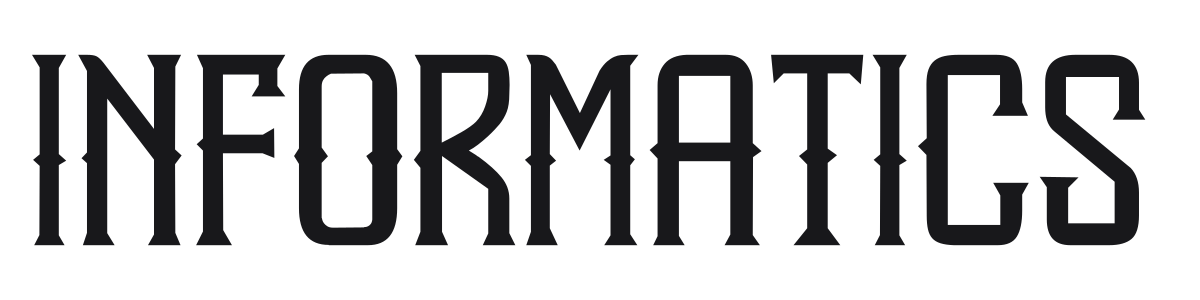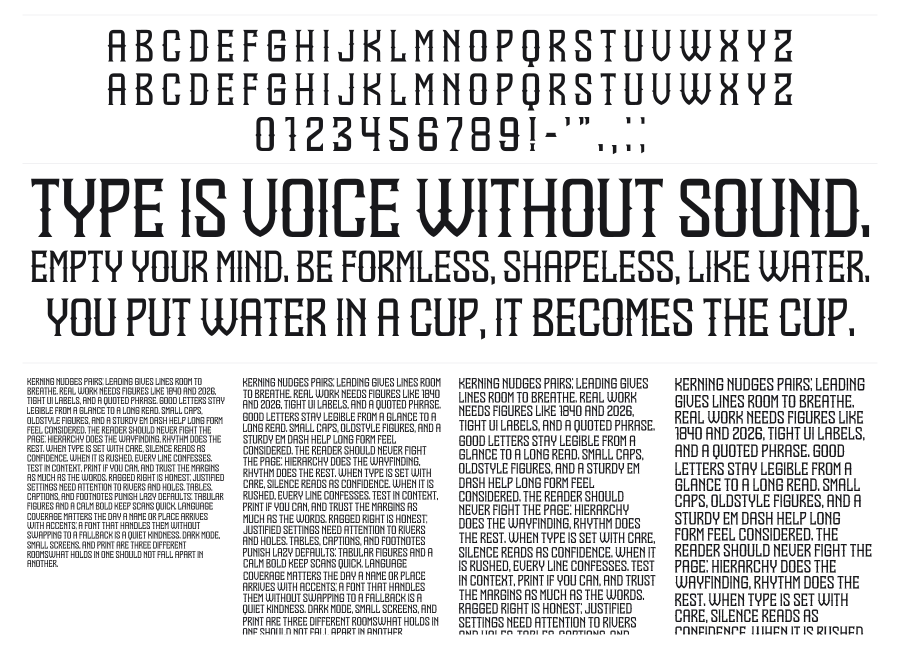
Informatics
Informatics is a bold condensed slab serif built on rigid rectangular construction with notched, segmented details at stroke joints that give it a distinctly mechanical character. It draws from Art Deco and early industrial signage traditions, projecting authority with a vintage edge. Strong at large sizes for headlines, posters, and brand identities that want presence without ornament.